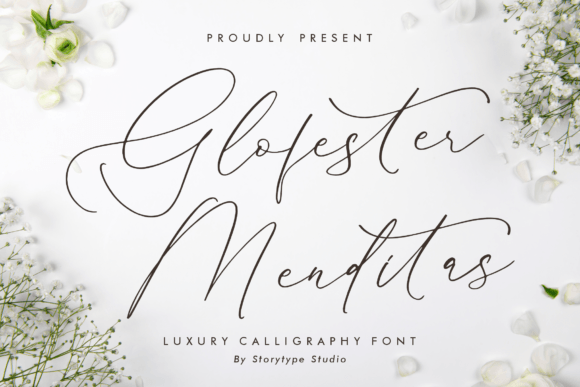
Voyage to the realm of exceptional artistry with Glofester Menditas Font, an exquisite script typeface crafted by Storytype Studio, masters of digital calligraphy. This font is not just a mere collection of letters; it is an expression of elegance and charm that breathes life into your creative endeavors. With Glofester Menditas, you possess the power to transform ordinary words into enchanting works of art.
Unleash the allure of Glofester Menditas and witness the transformation of your designs. With this font's captivating curves and flowing lines, your projects will exude a touch of sophistication and grace that leaves a lasting impression. Prepare to be spellbound by the sheer beauty of typography as you explore the boundless possibilities that await you.
Beyond its aesthetic appeal, Glofester Menditas is a font of unmatched versatility. Its exquisite charm lends itself effortlessly to a myriad of projects, from heartfelt wedding invitations and thank-you cards to thought-provoking quotes and vibrant greeting cards. Let your imagination soar as you create logos that command attention and business cards that leave a lasting impression. Glofester Menditas gracefully adapts to any design, adding a touch of magic and elegance that elevates your creations to new heights.
Embrace the boundless potential of Glofester Menditas and unlock the true power of handwritten artistry. With this font's intuitive design and PUA encoding, you have effortless access to a world of glyphs and swashes that add depth and dimension to your designs. Elevate your projects beyond the ordinary and immerse yourself in the artistry of Glofester Menditas.